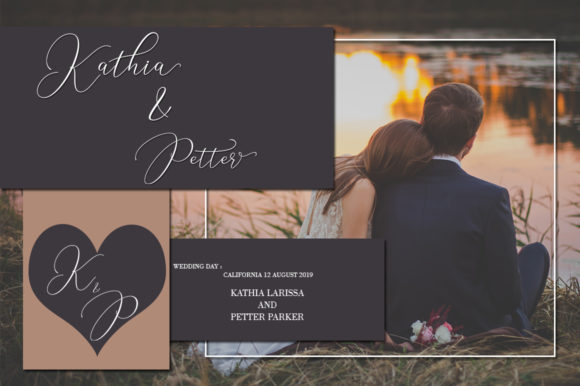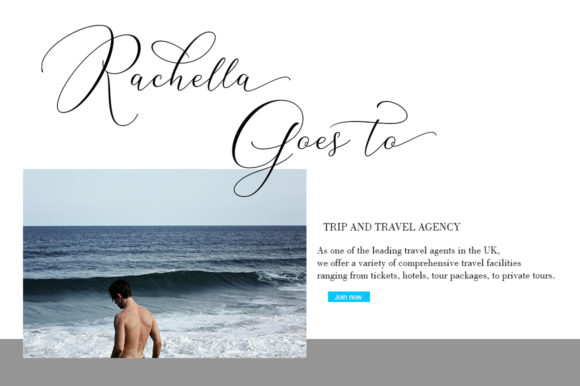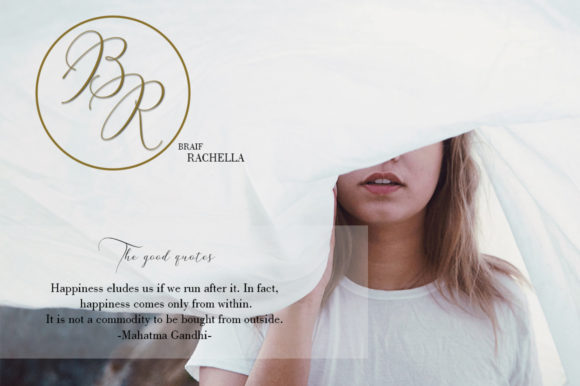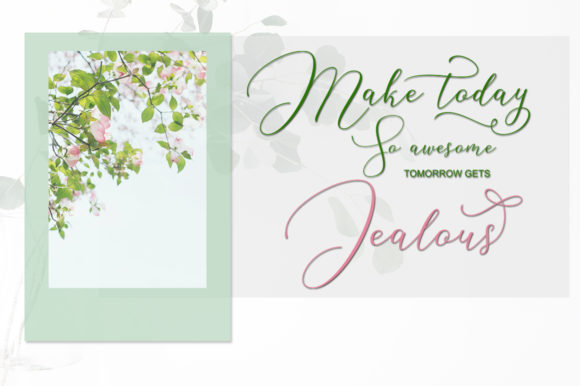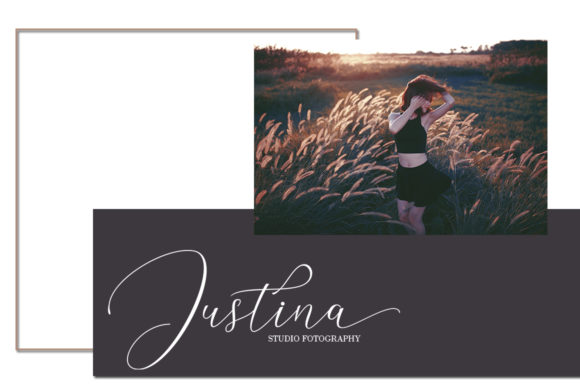
Introduction to Rathalia Font
Have you ever stared at a blank canvas, waiting for the perfect spark to ignite your creative project? For many designers, that moment comes when they discover a font that speaks to their vision. For us, that moment arrived when we stumbled upon the Rathalia Font – a modern calligraphy script that exudes a casual, high-quality charm.
With its transparent background and effortless elegance, Rathalia Font is the perfect design resource for any creative endeavor. Whether you’re crafting a logo, product packaging, or wedding invitation, this font is sure to elevate your design to the next level. And the best part? It’s available for free download, making it an invaluable asset for designers of all levels.
As a valuable addition to any design toolkit, Rathalia Font offers unparalleled flexibility and style, making it an essential resource for designers looking to add a touch of sophistication to their creative projects.
Key Features of Rathalia Font
- High-quality font design with a unique, modern aesthetic, perfect for creative projects.
- Designed with a large character set, supporting multiple languages and characters.
- Unique characteristics include bold and elegant lines, making it ideal for titles, headings, and creative typography.
Honest Review: Rathalia Font
I recently had the opportunity to work with the Rathalia Font, and I must say it’s a fantastic addition to any designer’s toolkit. This high-quality font is perfect for creative projects that require a unique touch.
One of the standout features of the Rathalia Font is its transparent background, which makes it incredibly versatile and easy to use. Whether you’re working on a graphic design project or creating a custom logo, this font is sure to impress.
Here are some of the things that work well with the Rathalia Font:
- High-quality design: The Rathalia Font is crisp and clear, making it perfect for print or digital use.
- Customizable: The transparent background allows for seamless integration with other design elements.
- ⚠️ Limited font styles: The Rathalia Font only comes in a few styles, which may limit its use in certain projects.
- ⚠️ Not suitable for body text: Due to its unique design, the Rathalia Font is best used for headlines and titles rather than body text.
Overall, I’m thoroughly impressed with the Rathalia Font. Its high-quality design, transparent background, and free download make it an excellent resource for designers. While it may have some limitations, it’s a great addition to any design library.
The Rathalia Font is suitable for a wide range of creative projects, including branding, marketing materials, social media graphics, presentations, and documents. Its high-quality design and transparent background make it an excellent choice for designers, marketers, and entrepreneurs who want to create professional-looking designs without breaking the bank.